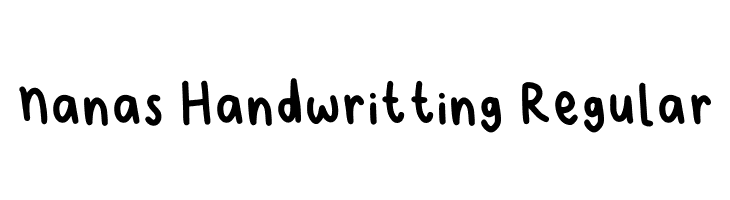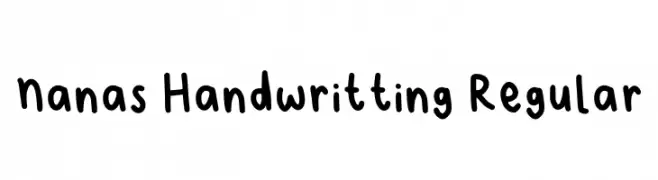
A playful handwritten font with rounded, consistent strokes and a casual feel.
A playful, handwritten font with a bold and friendly appearance.
A bold, playful handwritten font with rounded letterforms.
A bold, handwritten font with a playful and casual style.